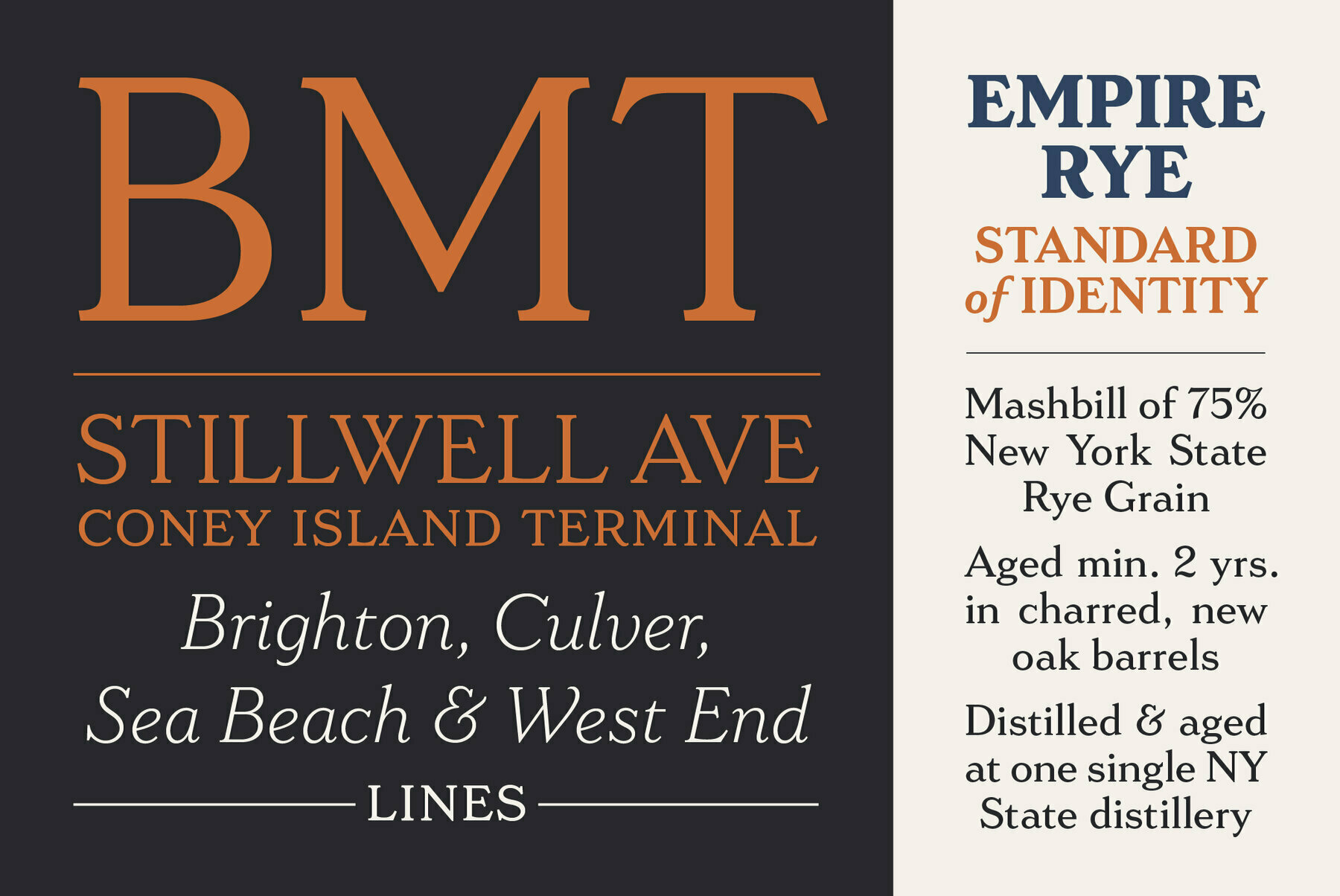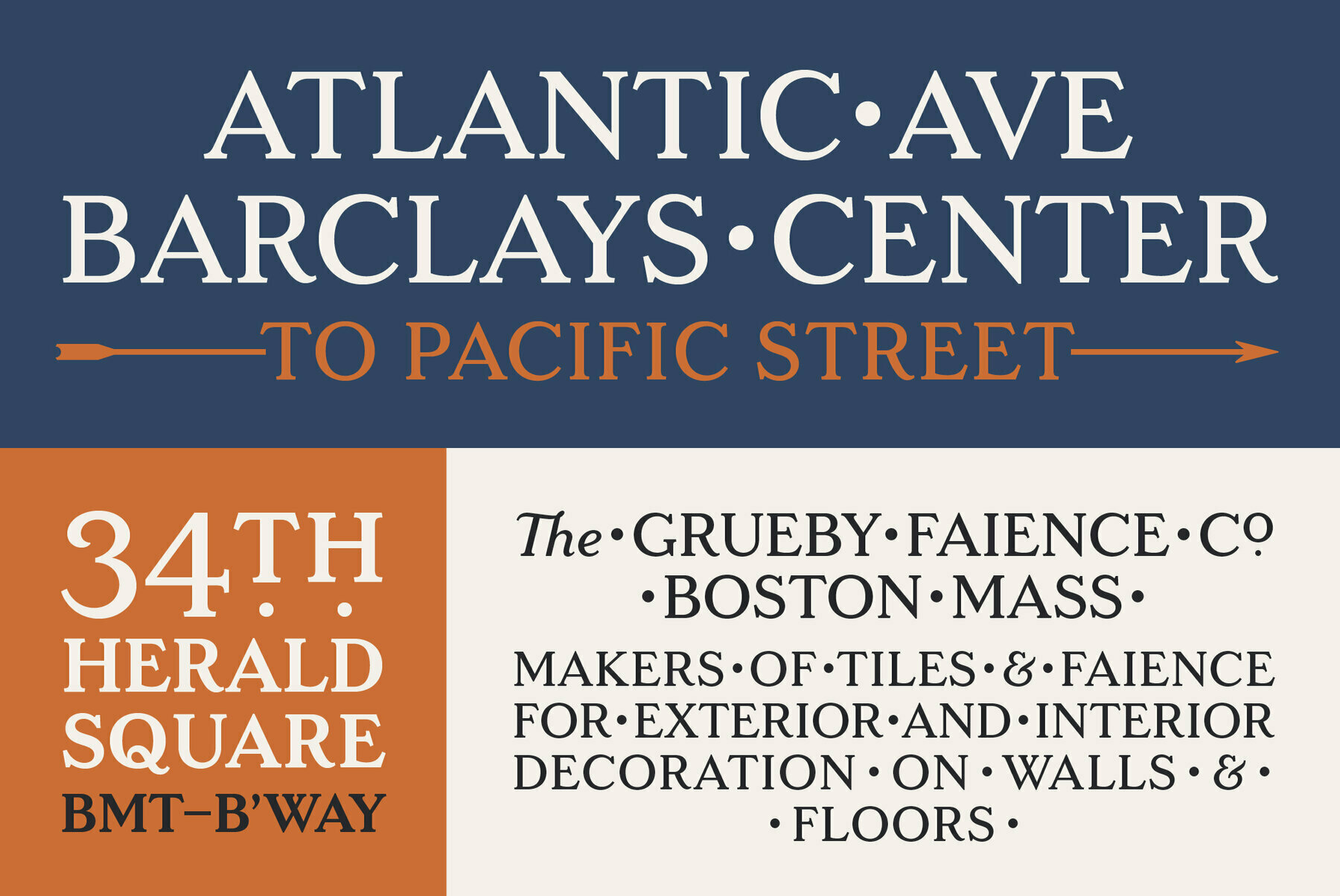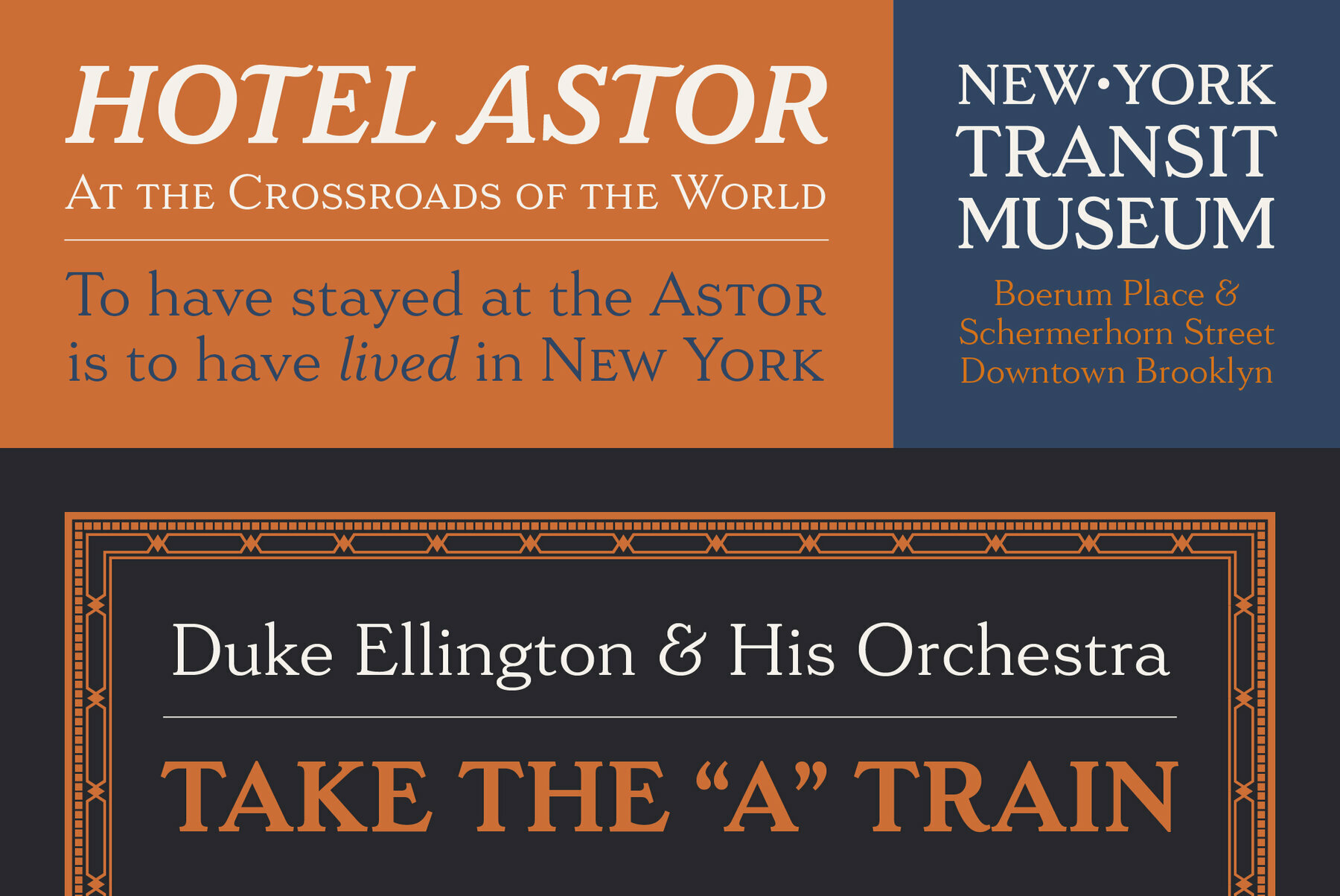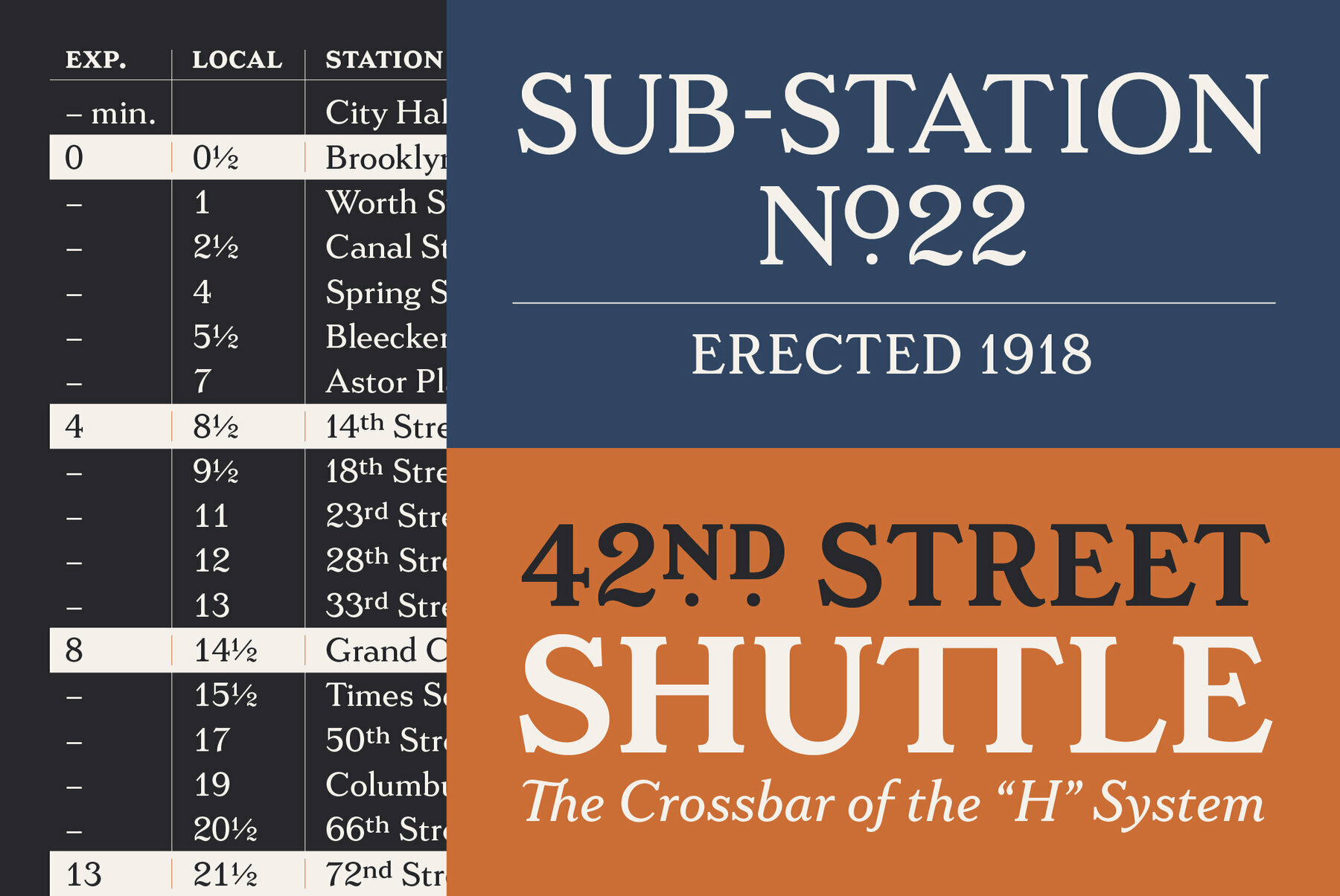
LaFarge Font
LaFarge is inspired by the mosaic capitals found in many early New York City Subway stations, featuring their distinctive high-waisted crossbars, elegantly curved “R” leg, and distinctive trapezoidal serifs, expanded into a full type family with a lower case and italic styles. The result is a fashionable, architecturally-minded typeface that is just as at home on the façade of a grand public building as it is on packaging, magazines, or the web. LaFarge has received the Communication Arts Typography Award, the ADC Annual Merit Award, is included in the 2020 STA 100, and was part of designer Greg Shutters’ winning portfolio in the 2019 Type Directors Club Ascender Awards.